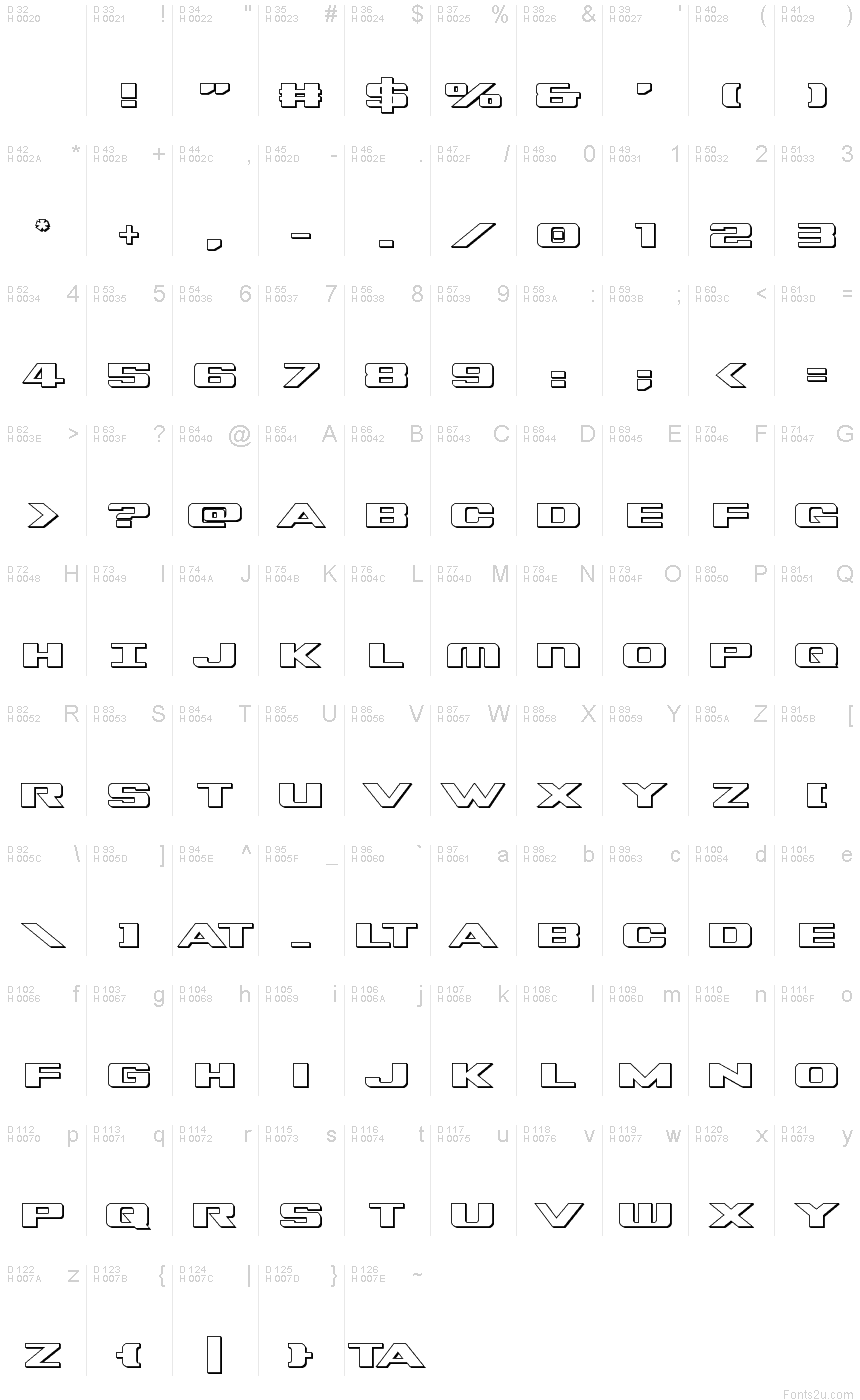
Tigershark 3D by Iconian Fonts is a free modern 3D display font with an extremely wide, engineered silhouette and angular cutaway details. Inset shadow lines sharpen its crisp arcade-machine finish.
Speed, machines, and futuristic competition suit the long horizontal forms, especially in racing-game titles and motorsport branding. The clipped corners and open interiors also fit sci-fi posters and team merchandise, where the lettering can echo vehicle decals and control-panel markings.
Tigershark 3D